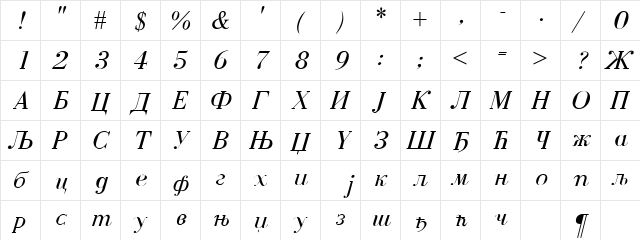
Czar Cirilica Italic
Design Context for Czar Cirilica Typeface
Czar Cirilica takes a measured approach to typography — its balanced proportions and neutral character make it a reliable workhorse for both digital and print work. Its italic angle brings a sense of urgency and motion to the letterforms.
Pro Tip: Try Czar Cirilica for annotation and caption copy alongside an upright companion — the contrast in angle creates a dynamic but ordered typographic system.